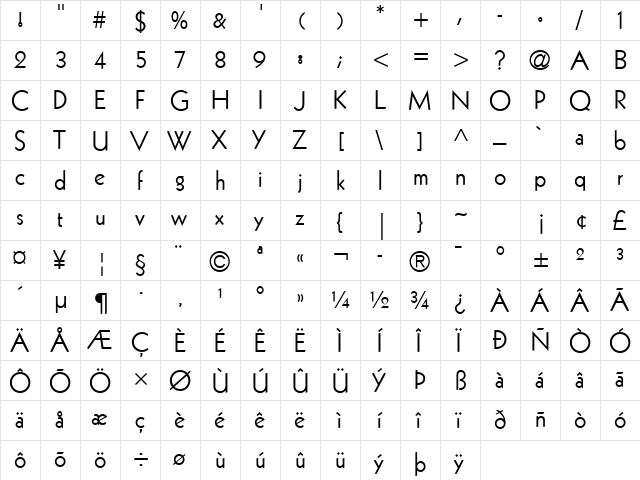
Amer LT Regular
| Foundry | Linotype GmbH |
| Designer | Linotype Design Studio |
Design Context for Amer LT Typeface
Amer LT is a composed and adaptable typeface that performs quietly and consistently across a wide range of design contexts. The delicate stroke weight brings airiness and refinement to layouts.